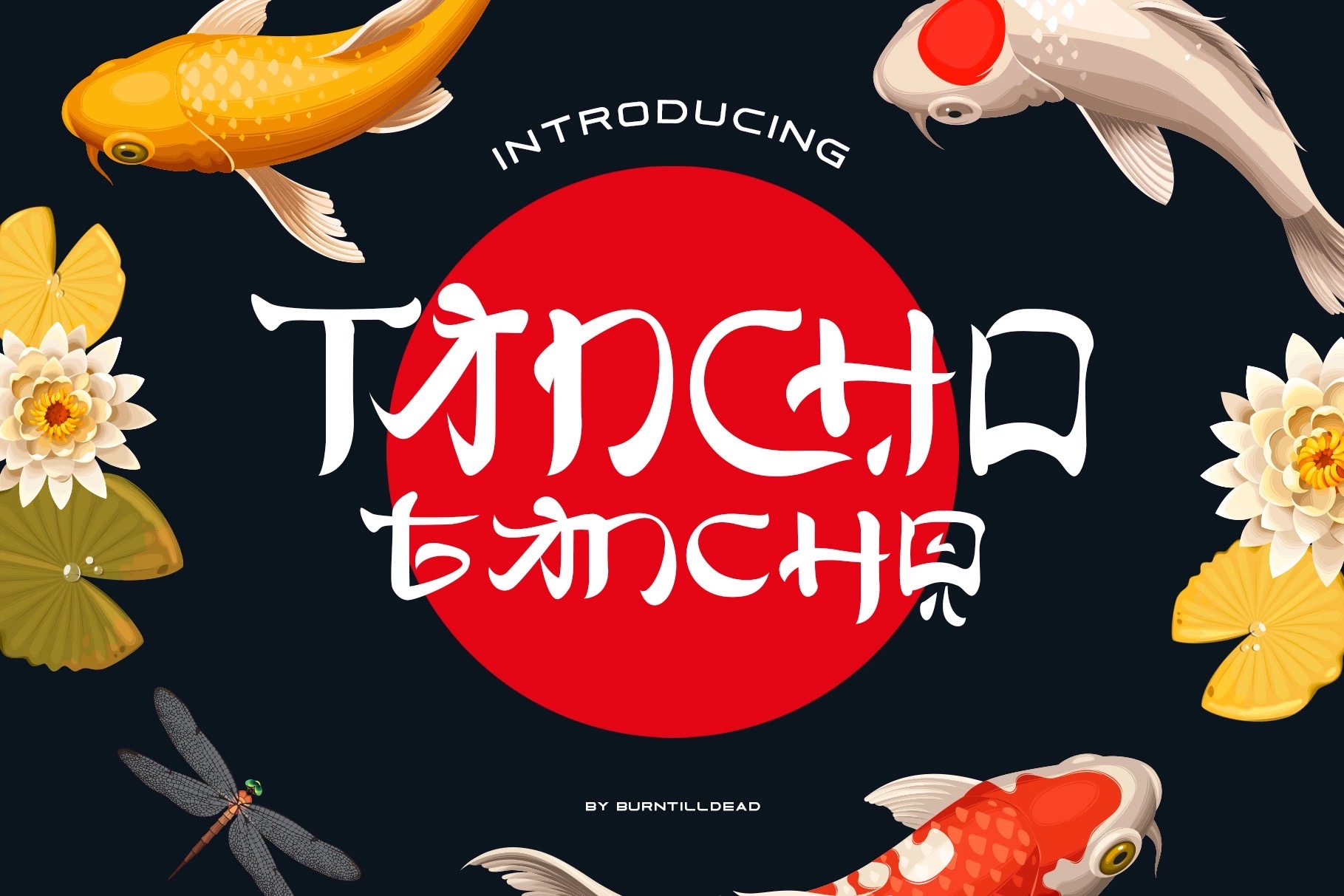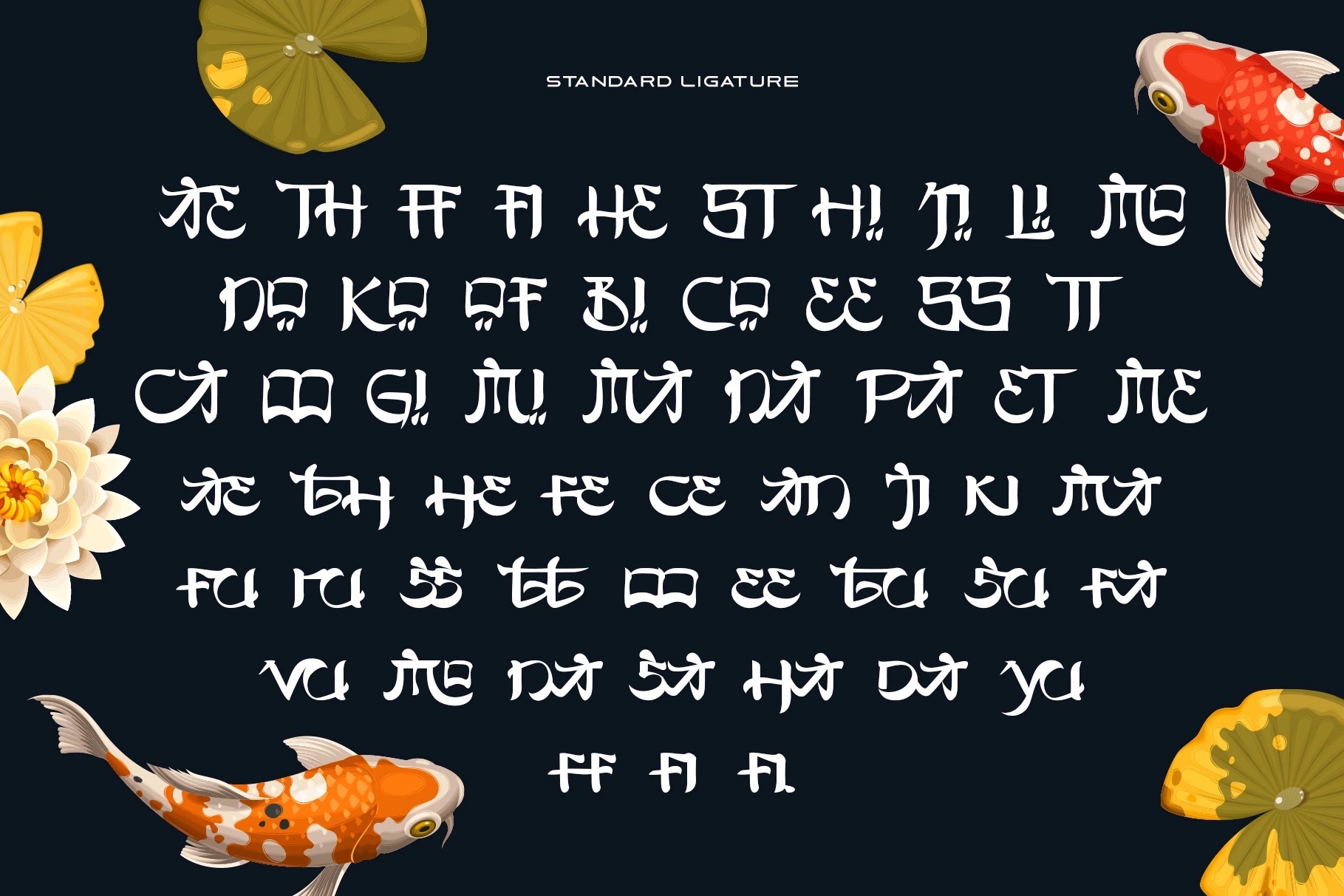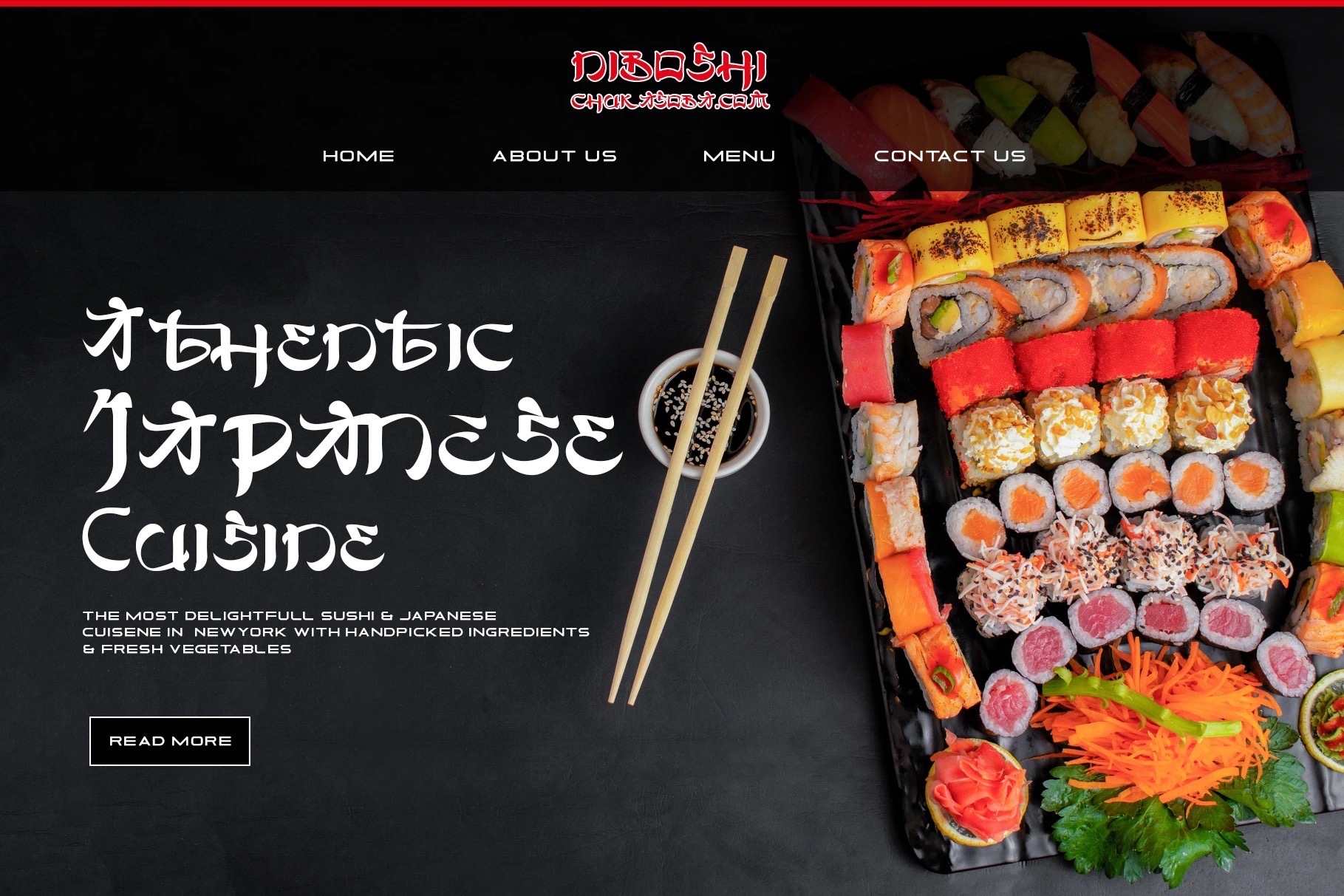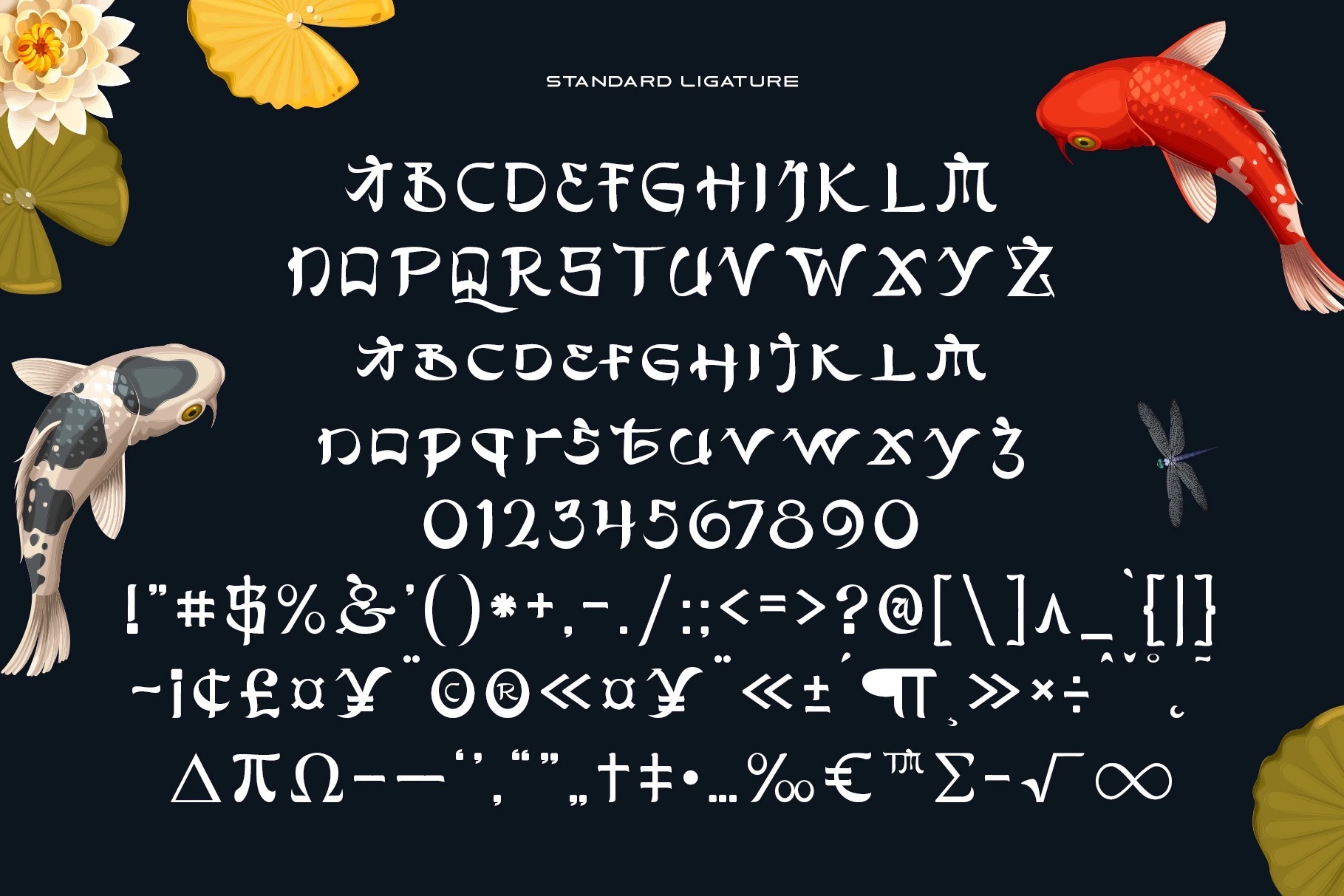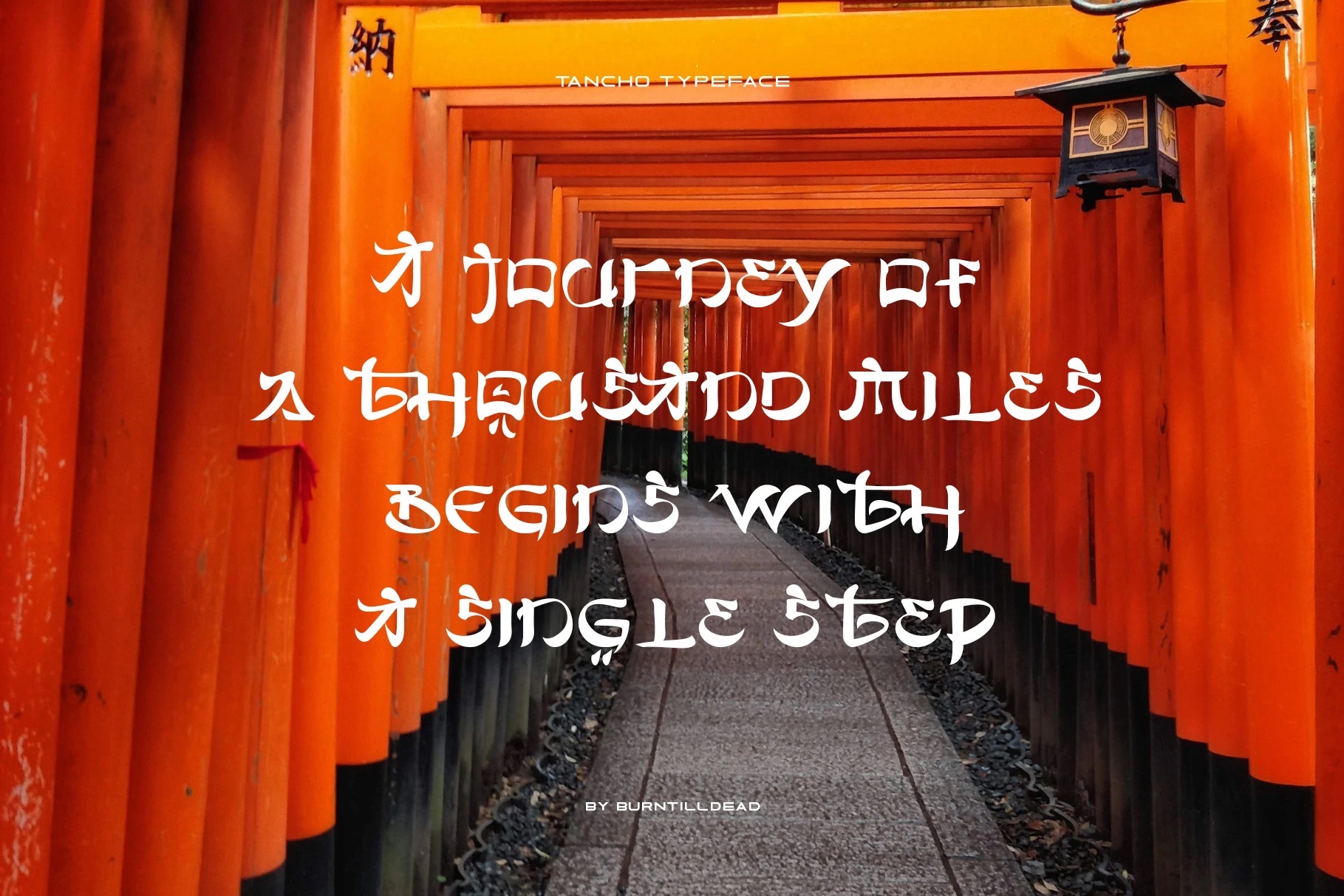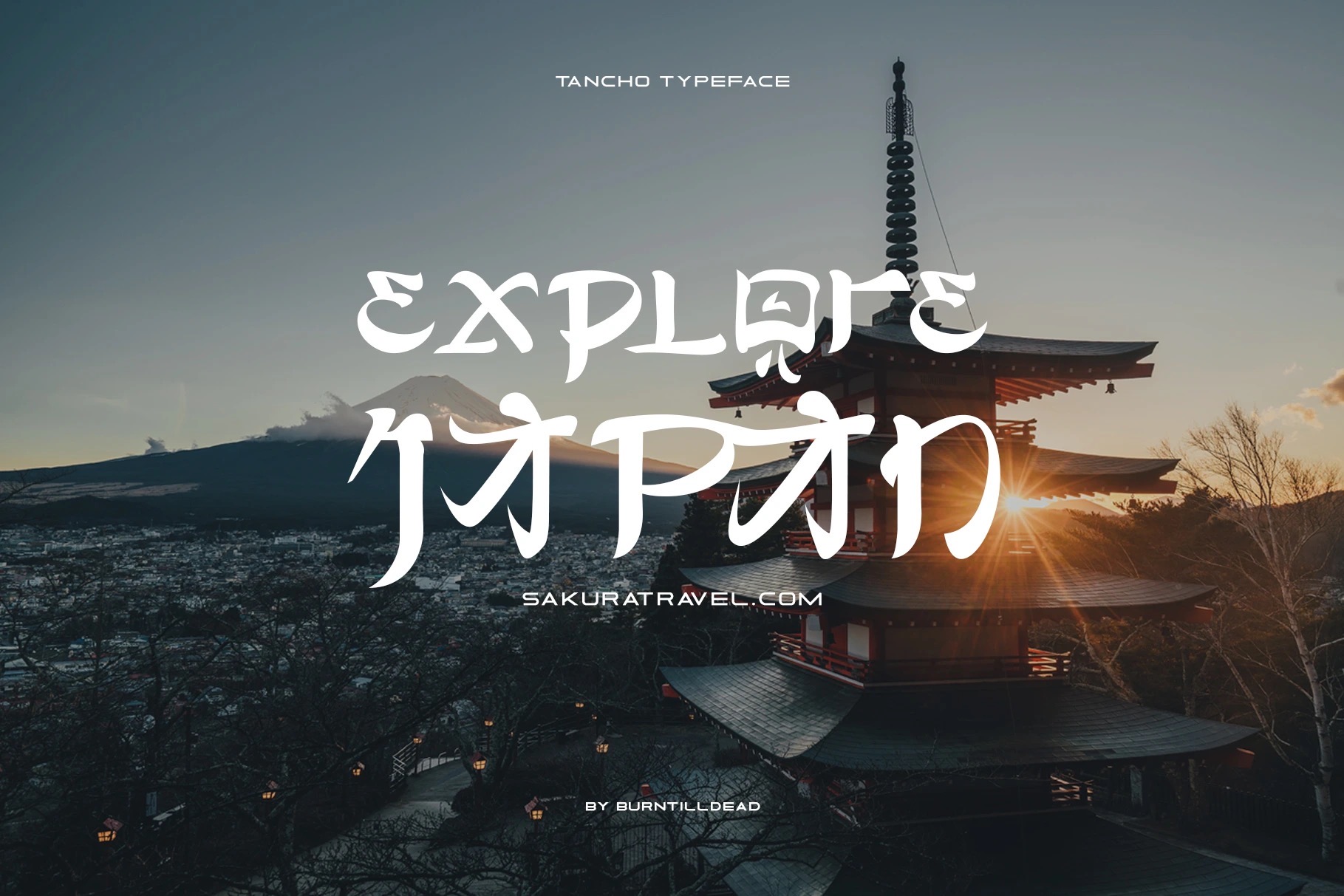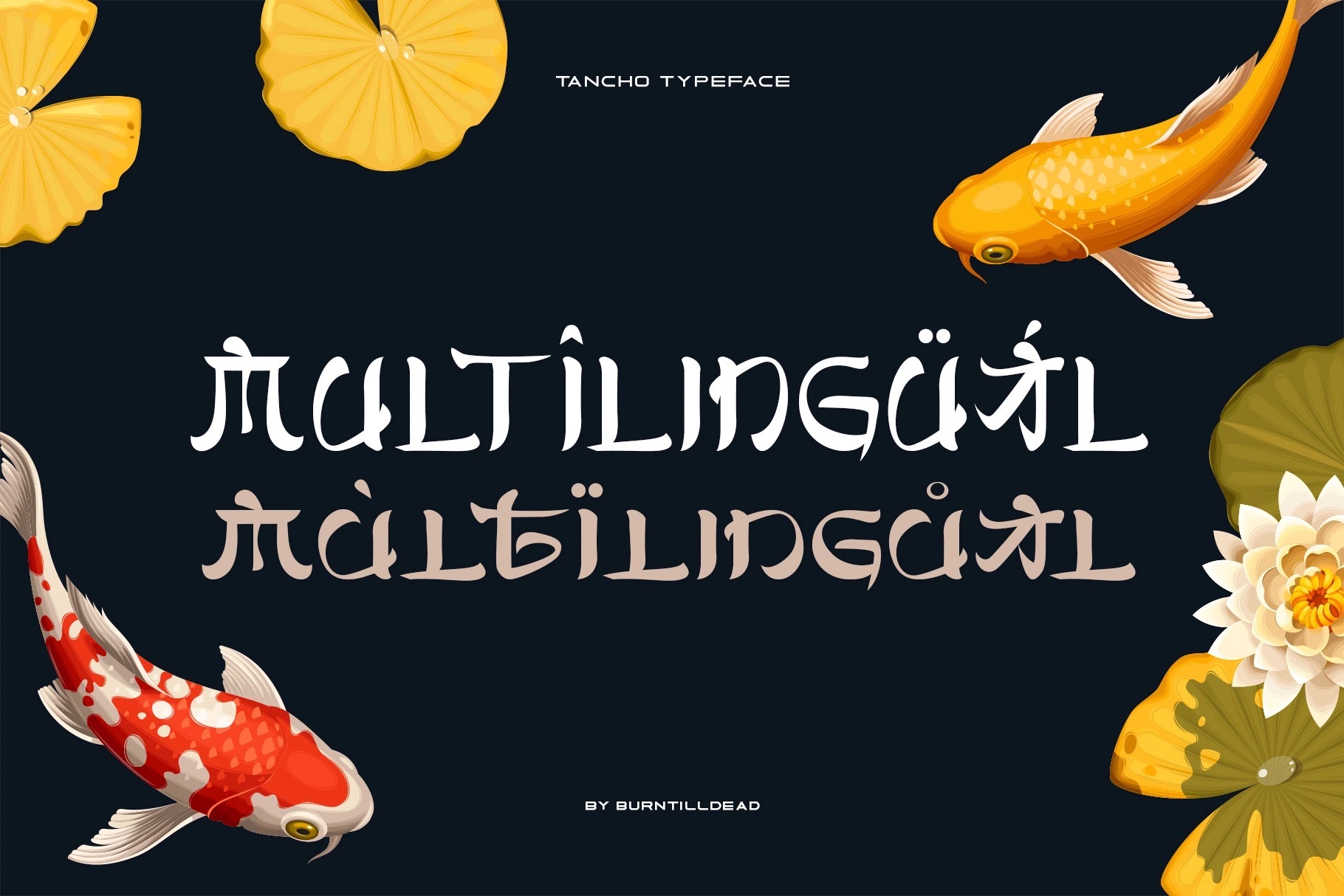
Tancho
byBurn Till Dead Studio
Say hello to “Tancho”, a display typeface with Japanese style. Powered with ligature to make fluent combination & Multilingual language.